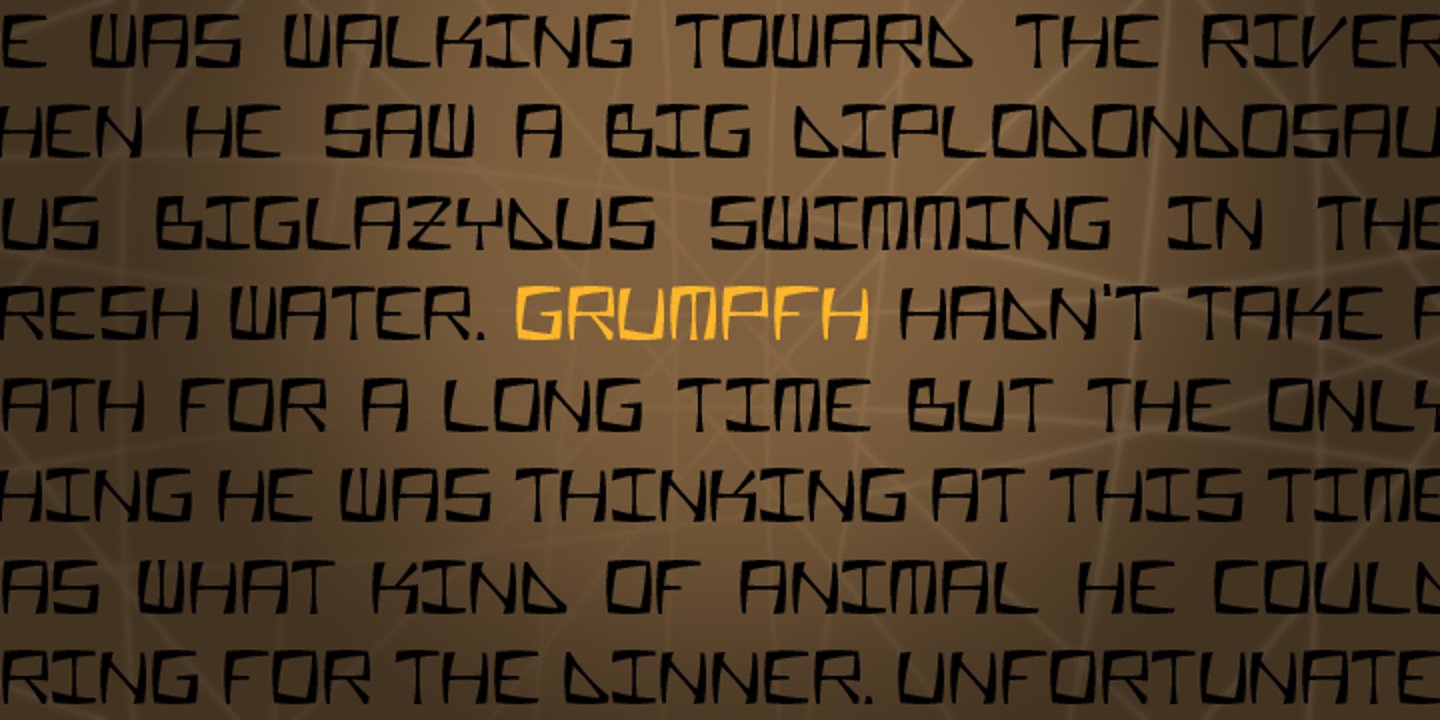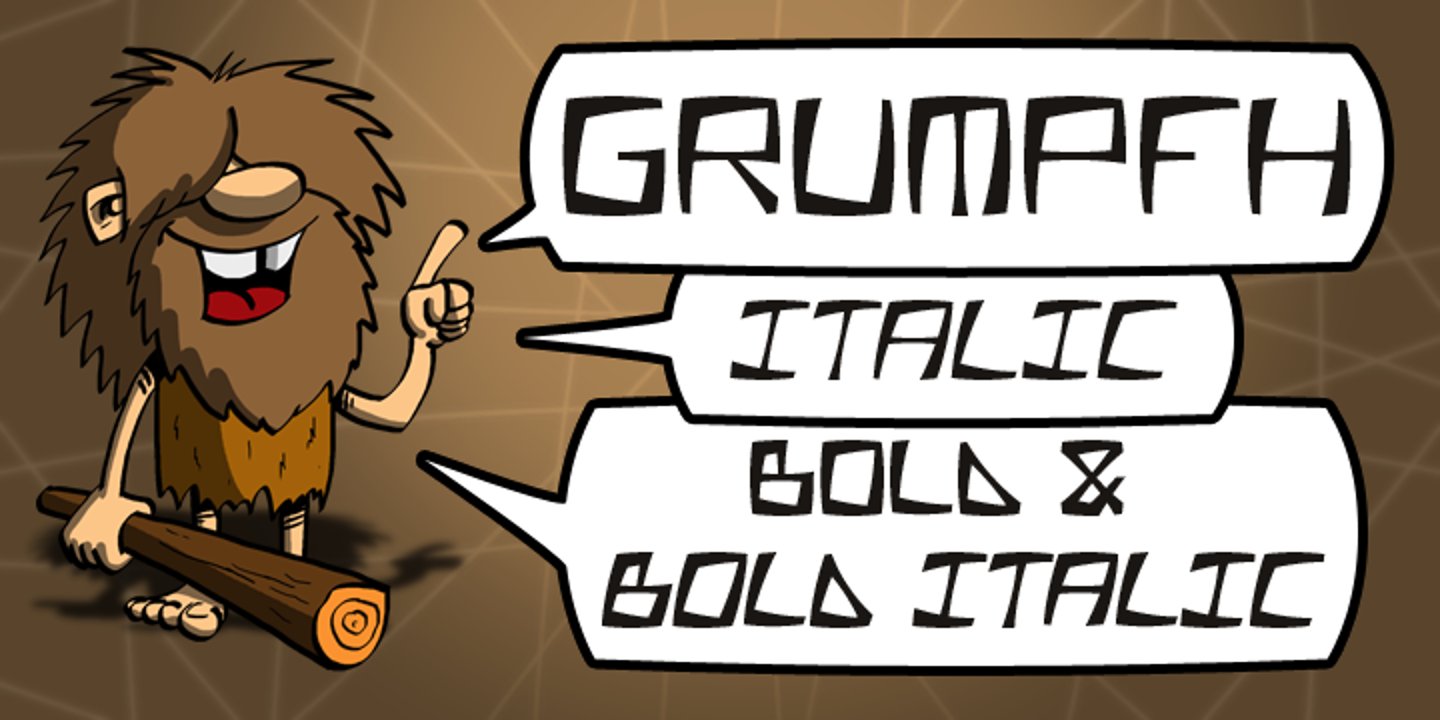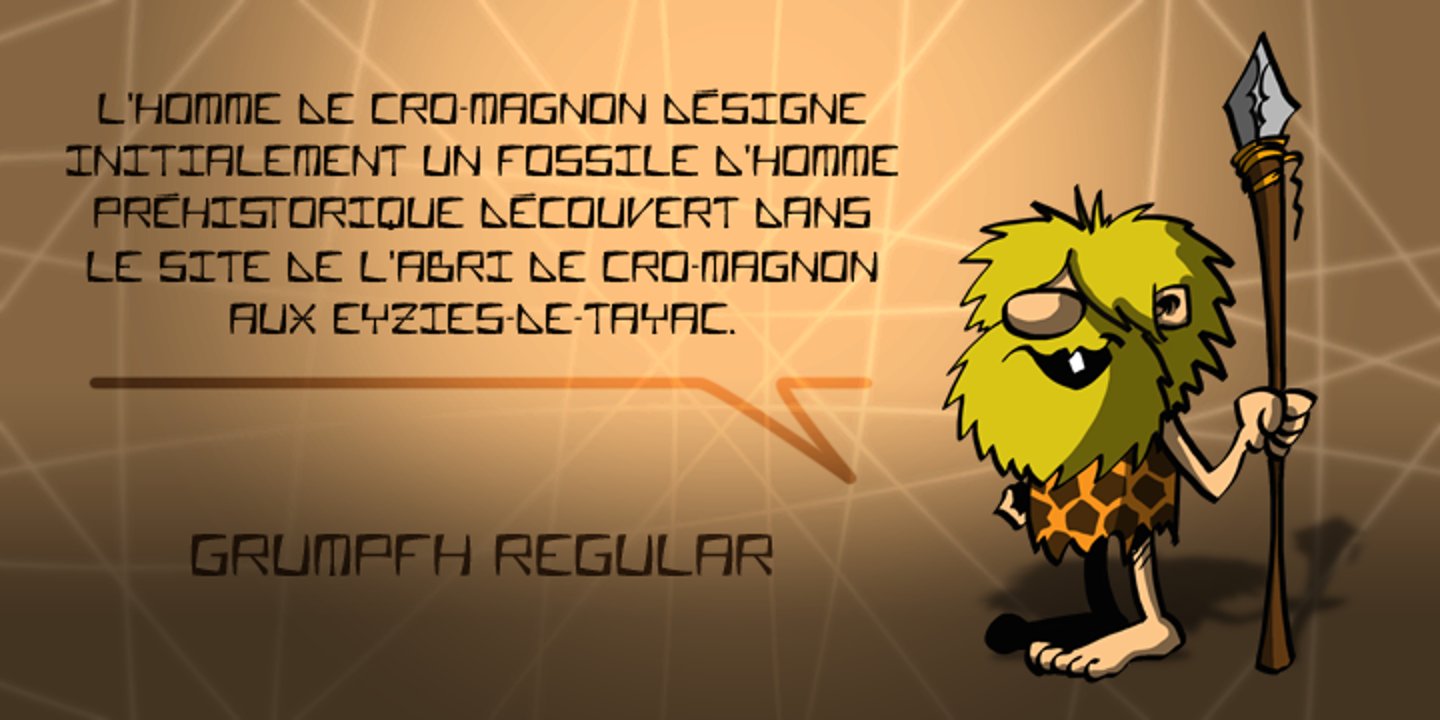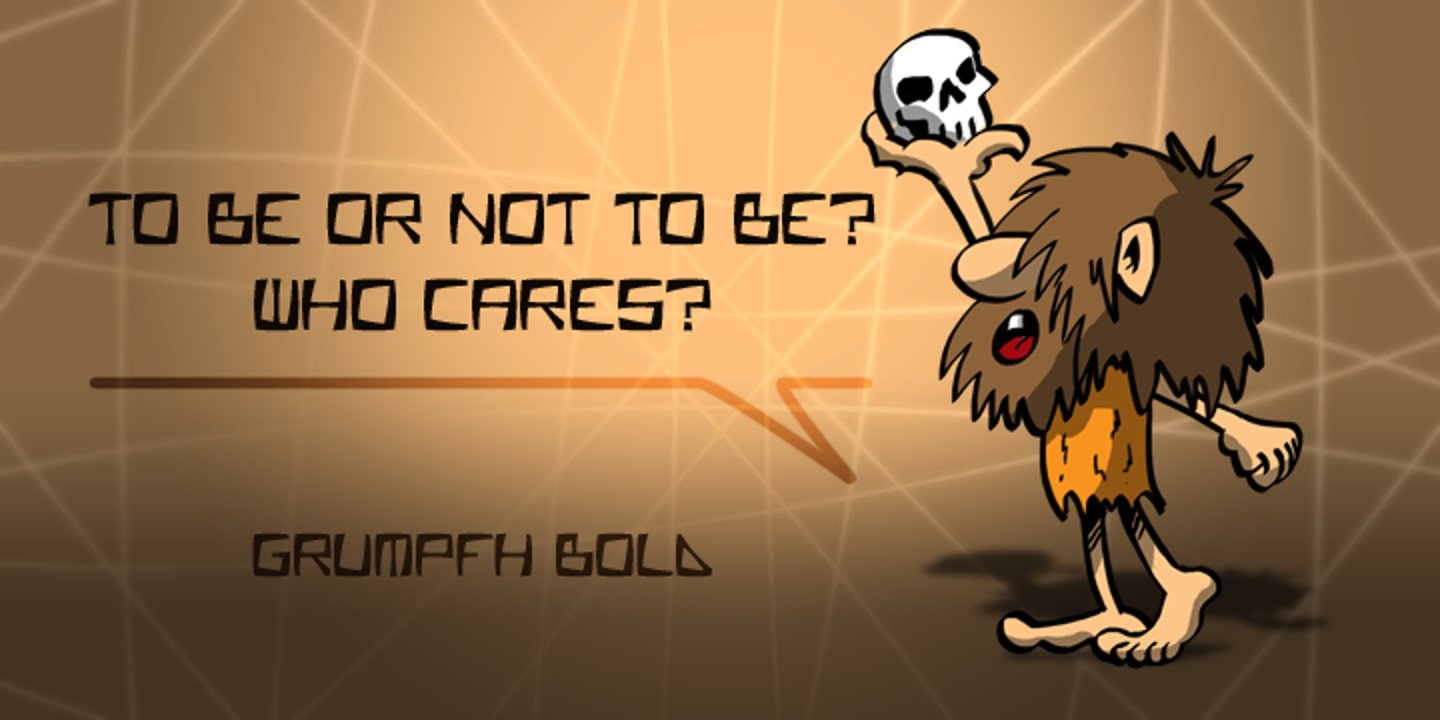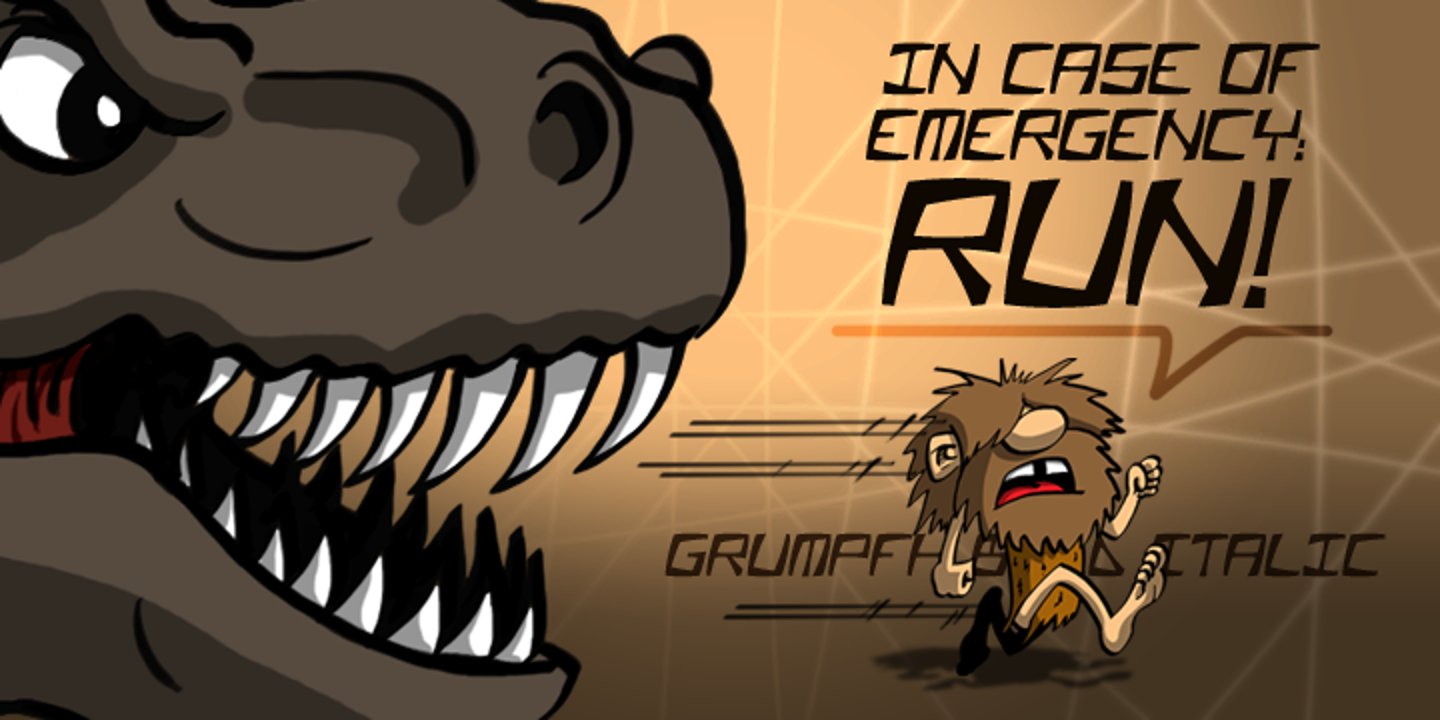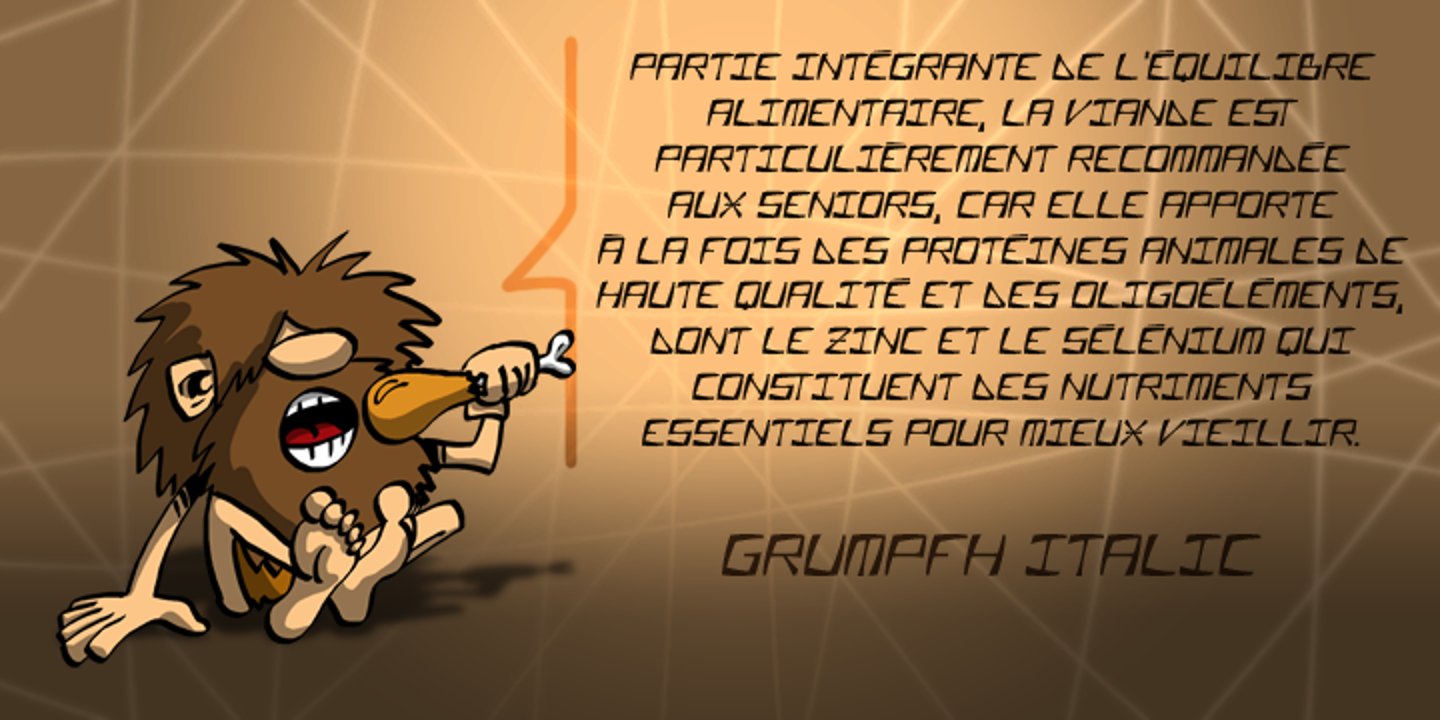
I was working on illustrations for children when the general shapes of GRUMPFH came to life. GRUMPFH is a cool, all-caps family which is really funny to play with. Suitable for children's cartoons, posters and so on.